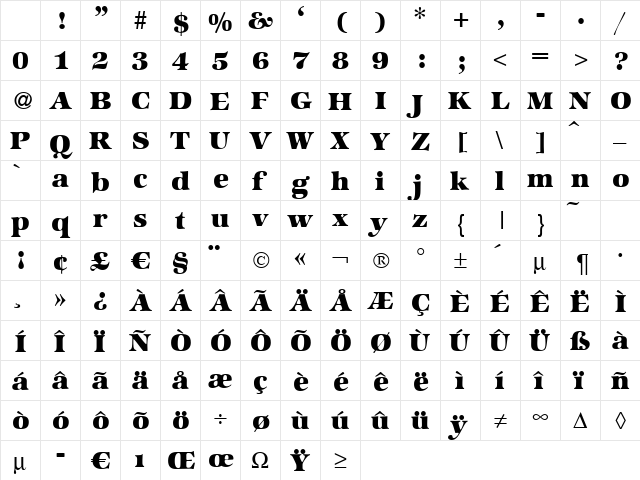
Complete ZabriskieInternational-Heavy Regular glyph index. Displaying only characters natively supported by ZabriskieInternational-Heavy Regular font.
ZabriskieInternational-Heavy is a composed and adaptable typeface that performs quietly and consistently across a wide range of design contexts.